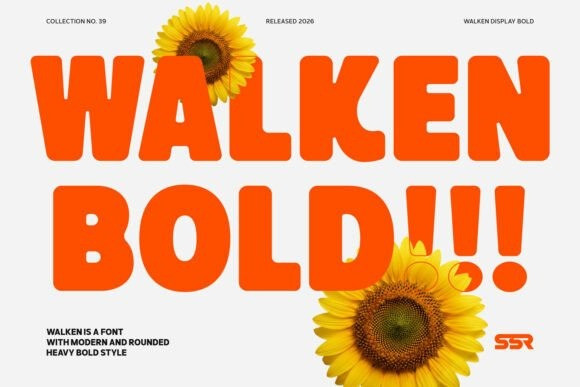
Walken Font
Designer: Second Son Radiance
Walken Font is a Modern Rounded Bold Logo Sans Font designed to bring energy and fun to any project. This typeface is bold and inked, with friendly, rounded edges that give it a warm, playful personality. It perfectly embodies a groovy style ideal for capturing attention, such as high-impact headlines and memorable logo designs. It is especially well-suited for branding and packaging across the food, kids, cafe, bakery markets, and any projects that require a touch of engaging, approachable, and modern sans serif. Walken delivers the perfect blend of modern simplicity and visual delight.